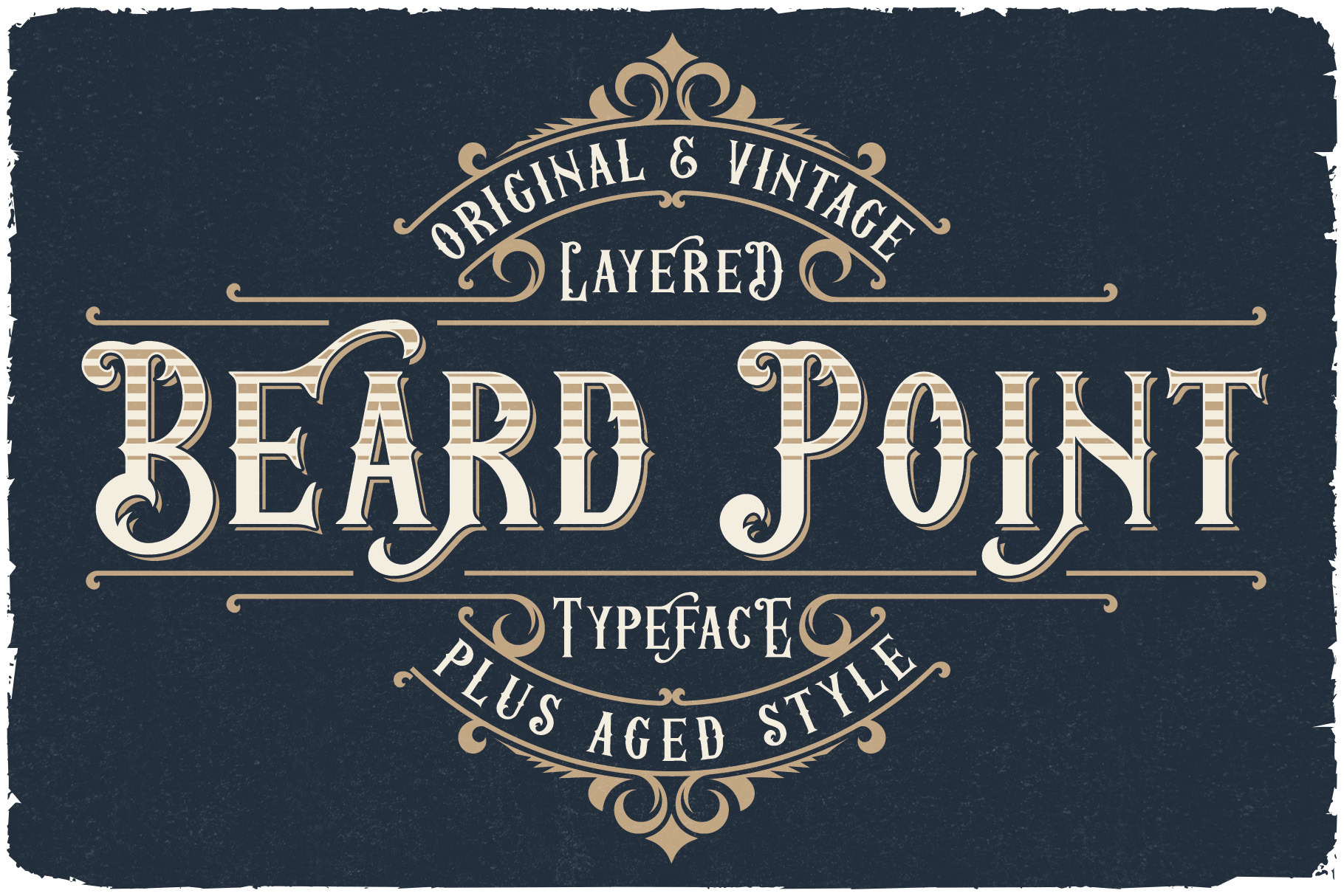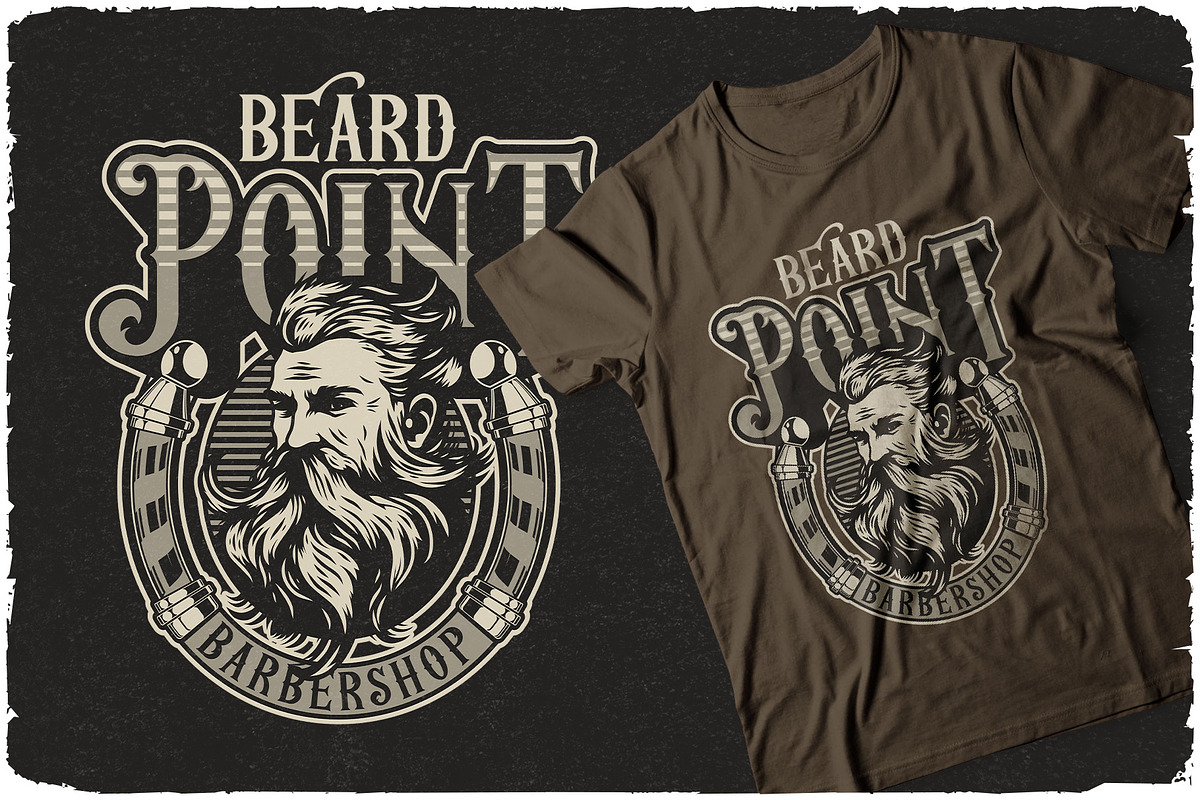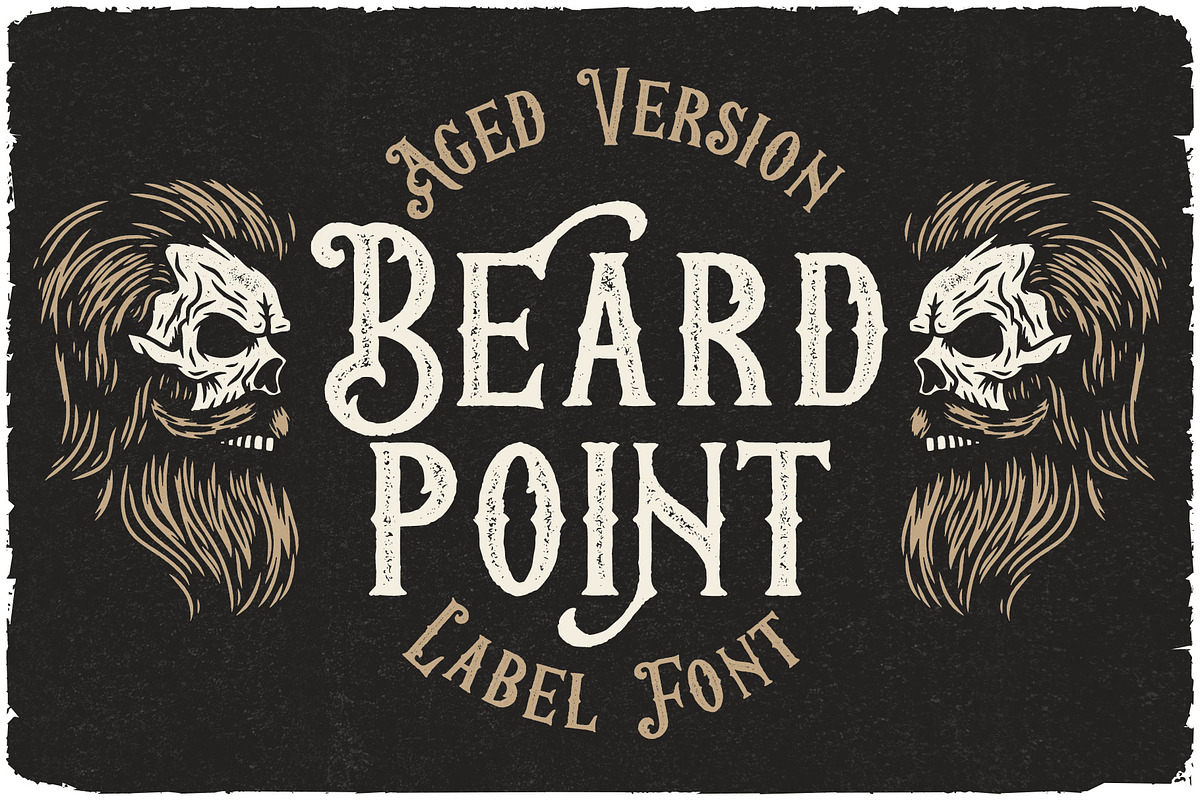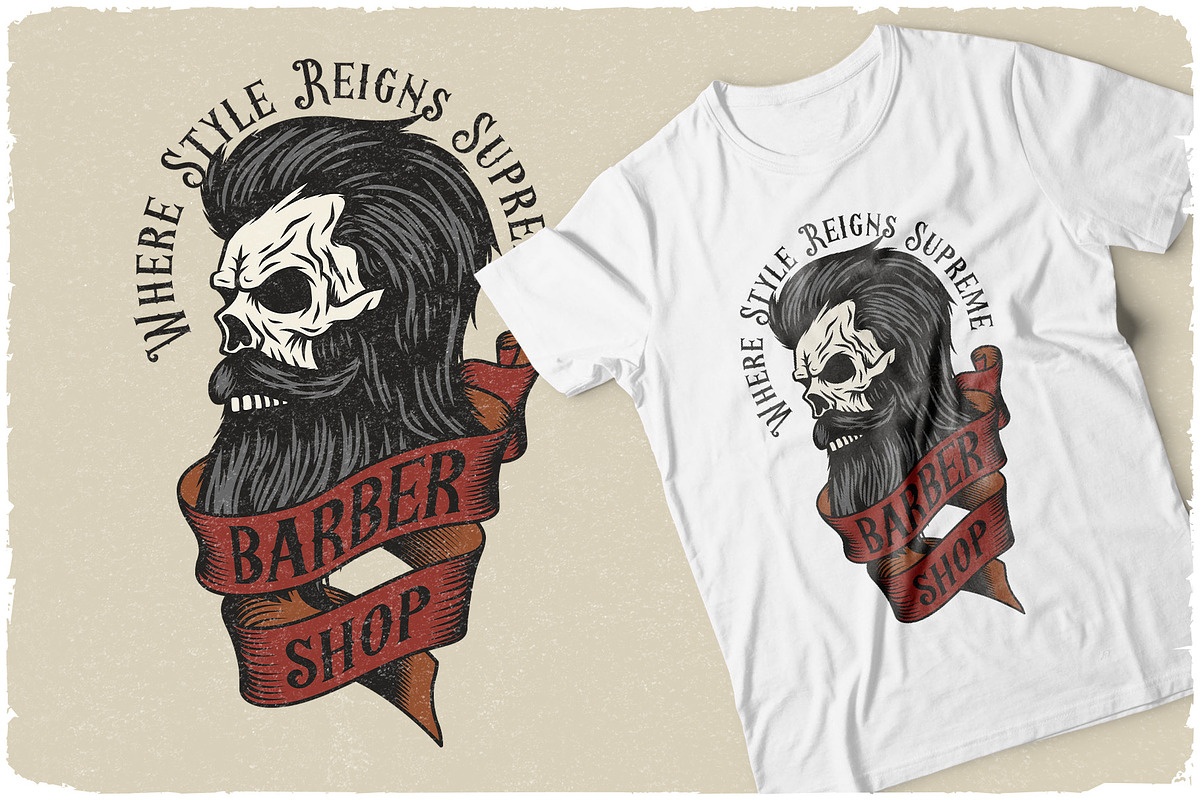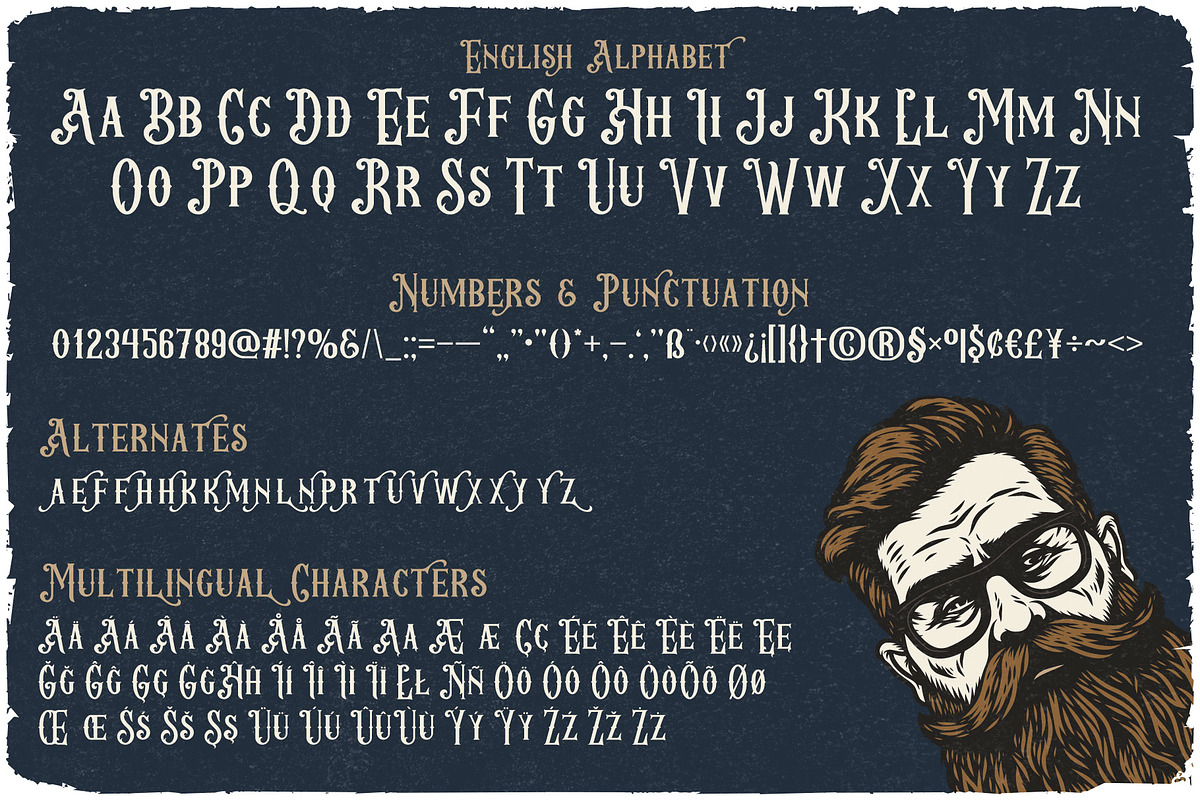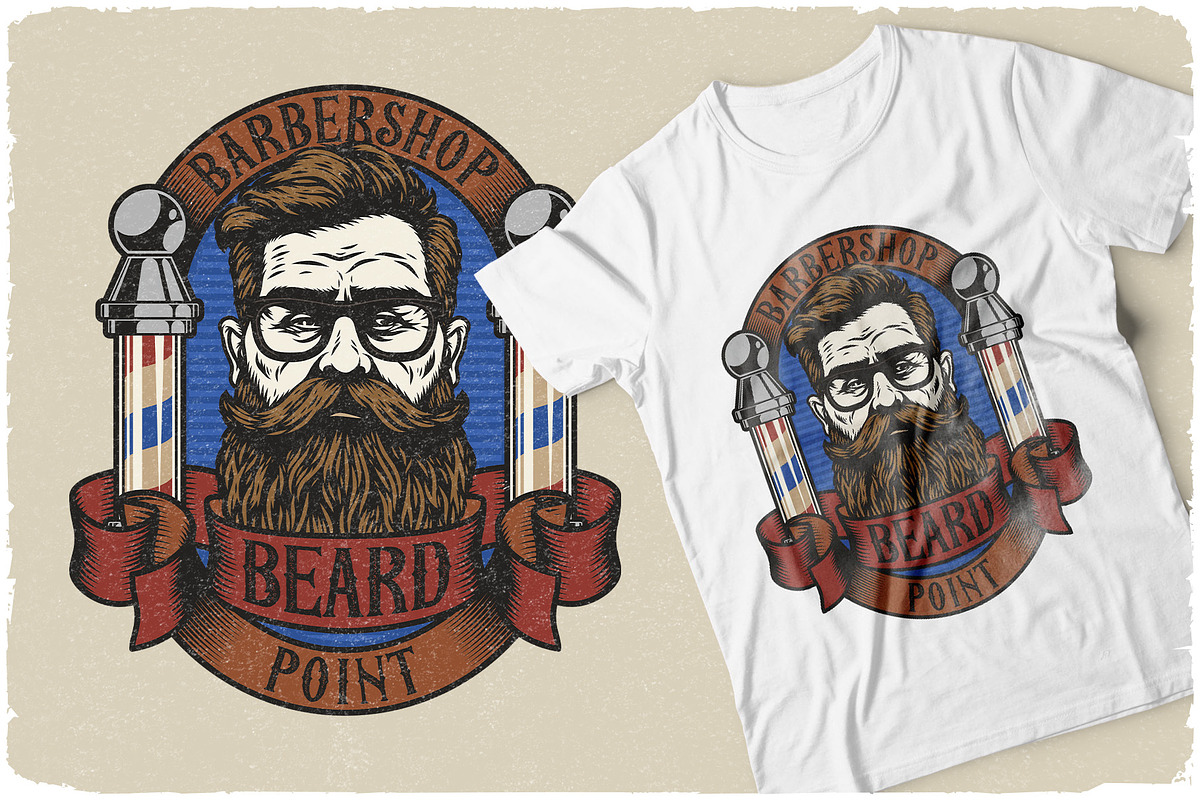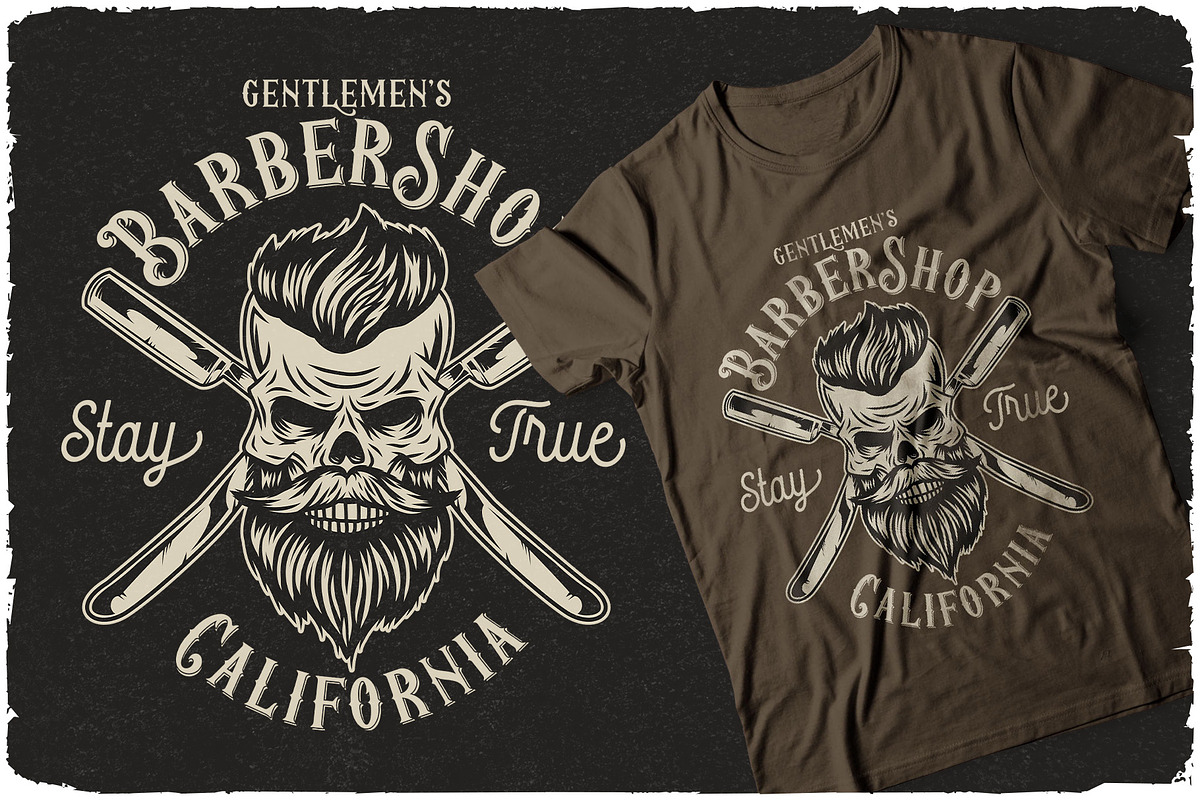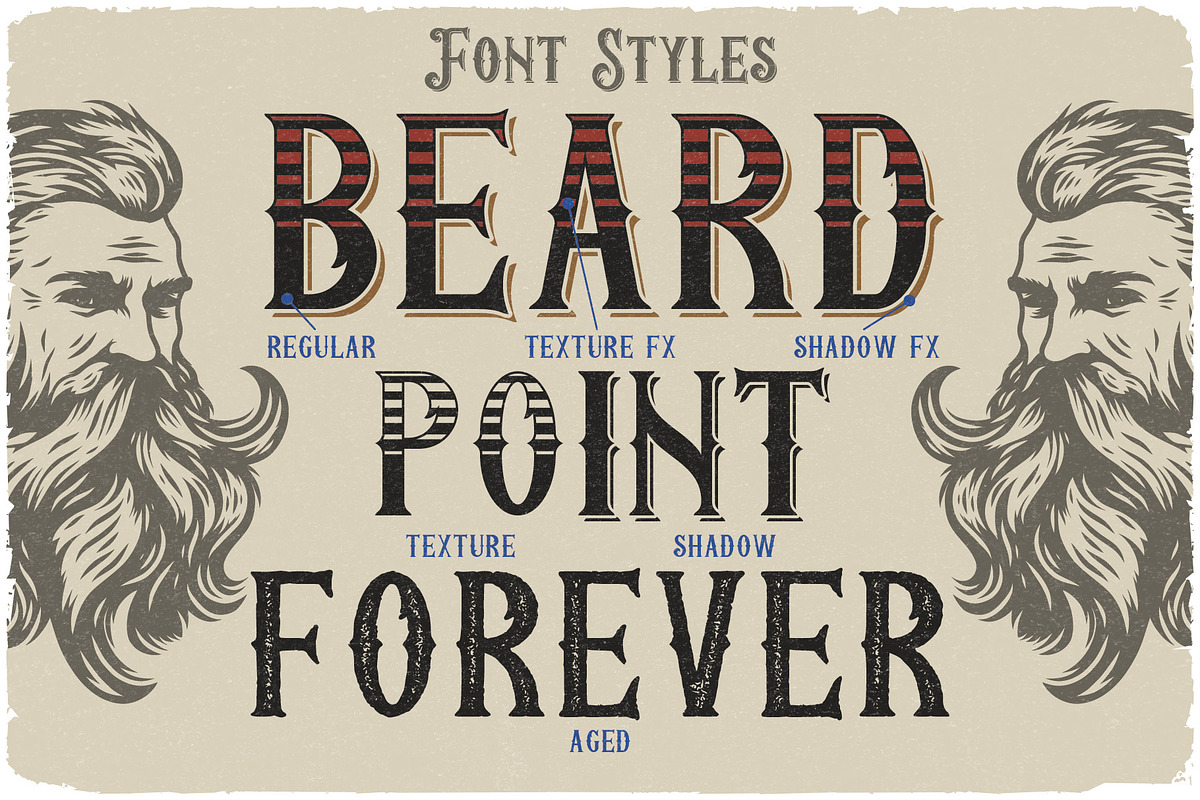
Beard Point Layered Font
Introducing vintage label font named Beard Point. This font family has an additional characters and multilingual support (check out all available characters on preview). The font family has six styles: Regular, Shadow, Texture, Shadow FX, Texture FX, Aged. This font will look good on any vintage styled designs like a poster, T-shirt, label, logo, etc.
- A lot of additional symbols and multilingual support.
- Shadow FX and Texture FX layer styles. Just copy text on Regular style, paste in the same position and change style to Shadow FX or Texture FX. This way you can create any color combination from the font, its shadow and its texture.